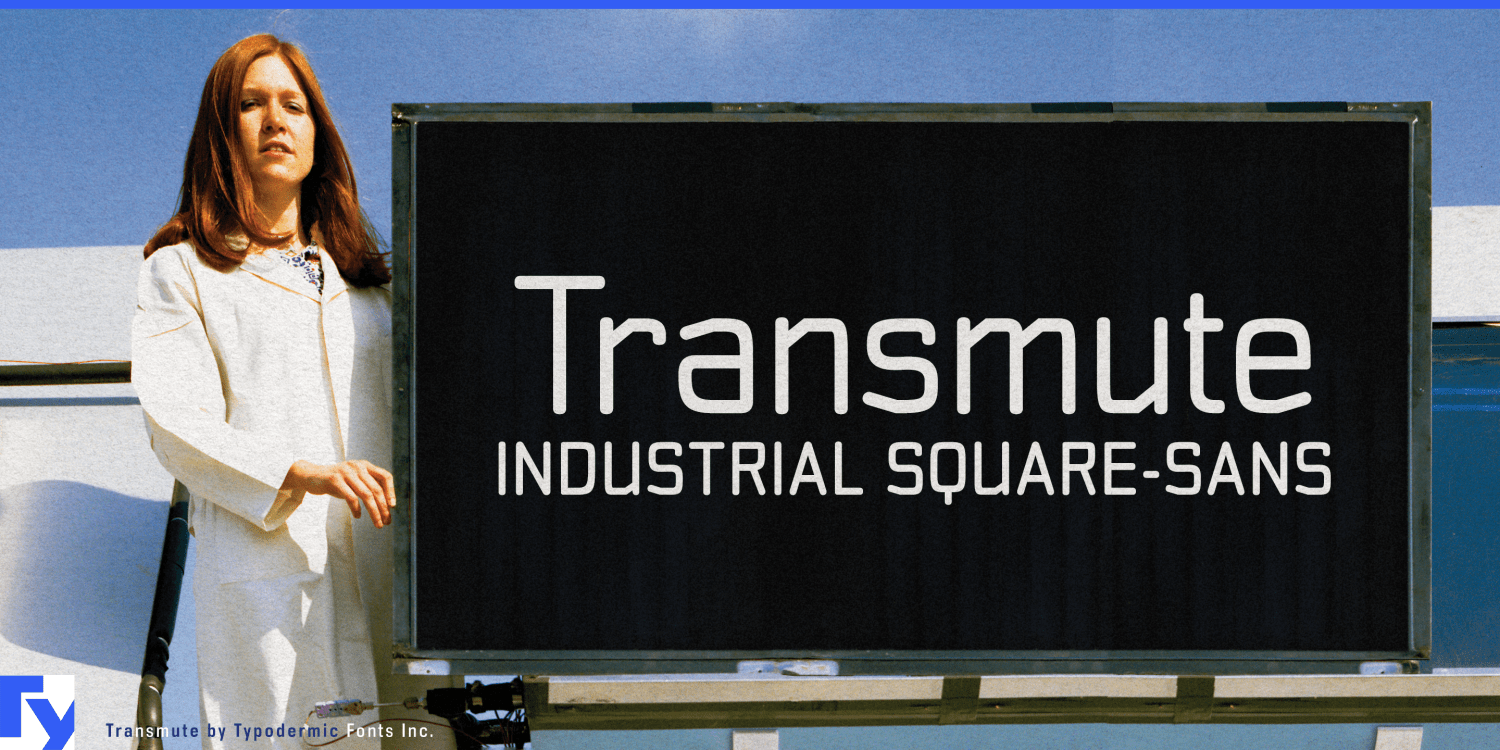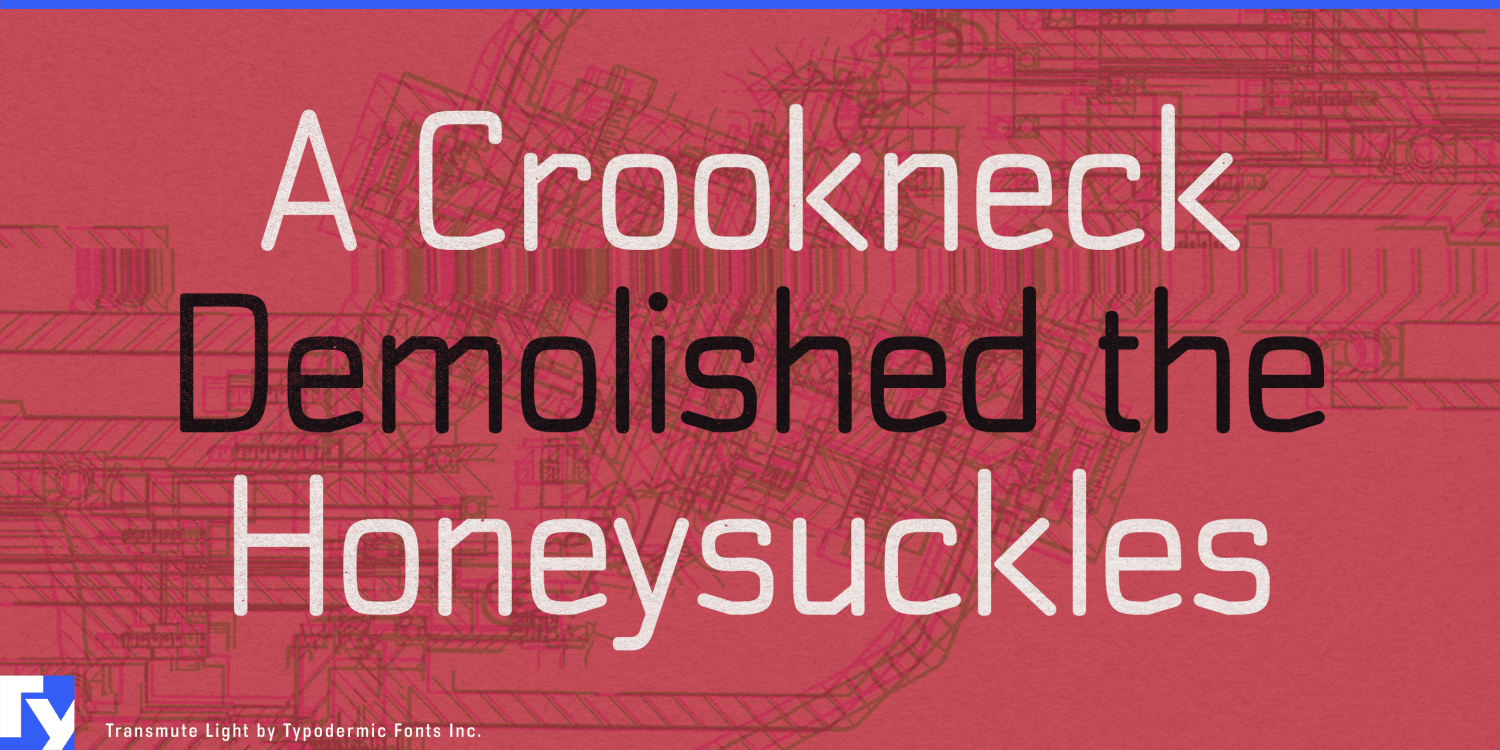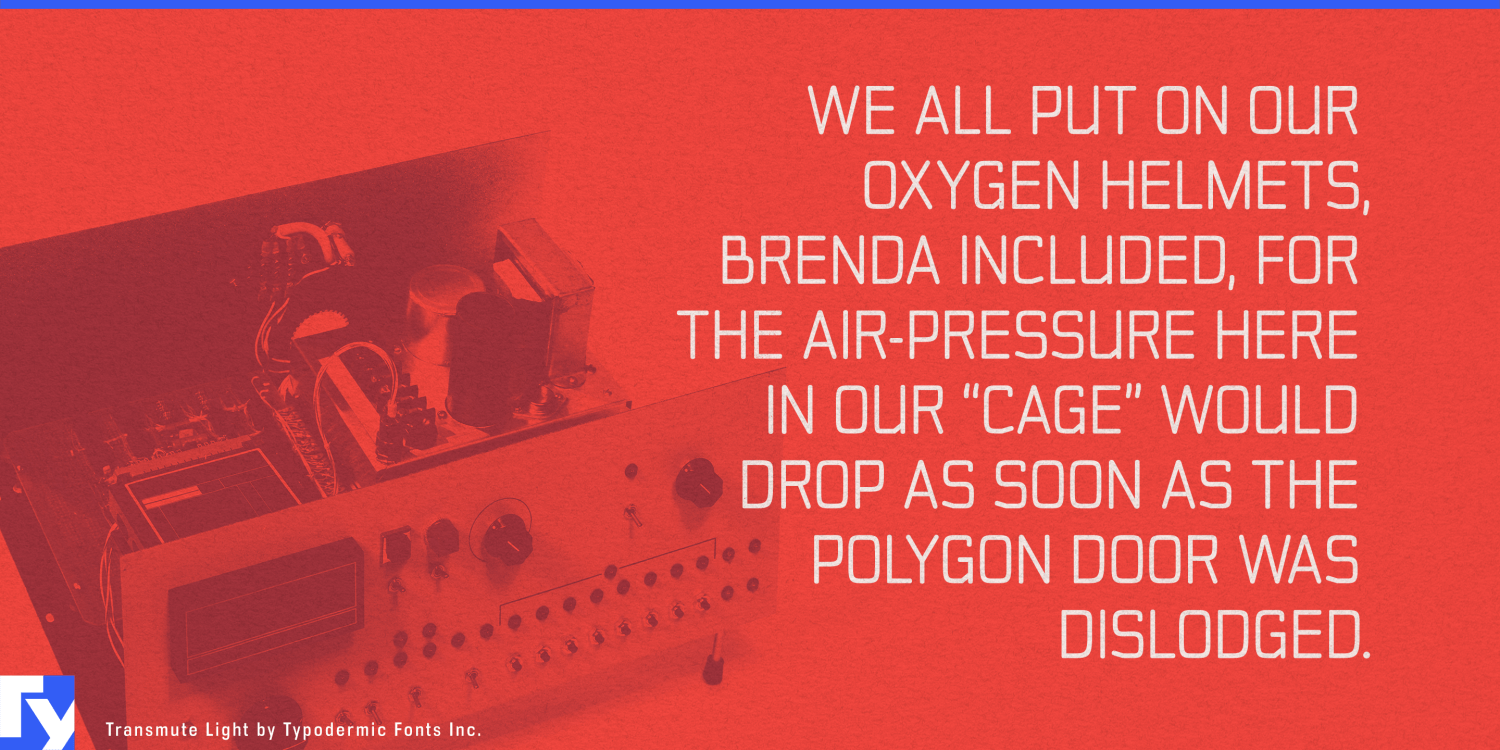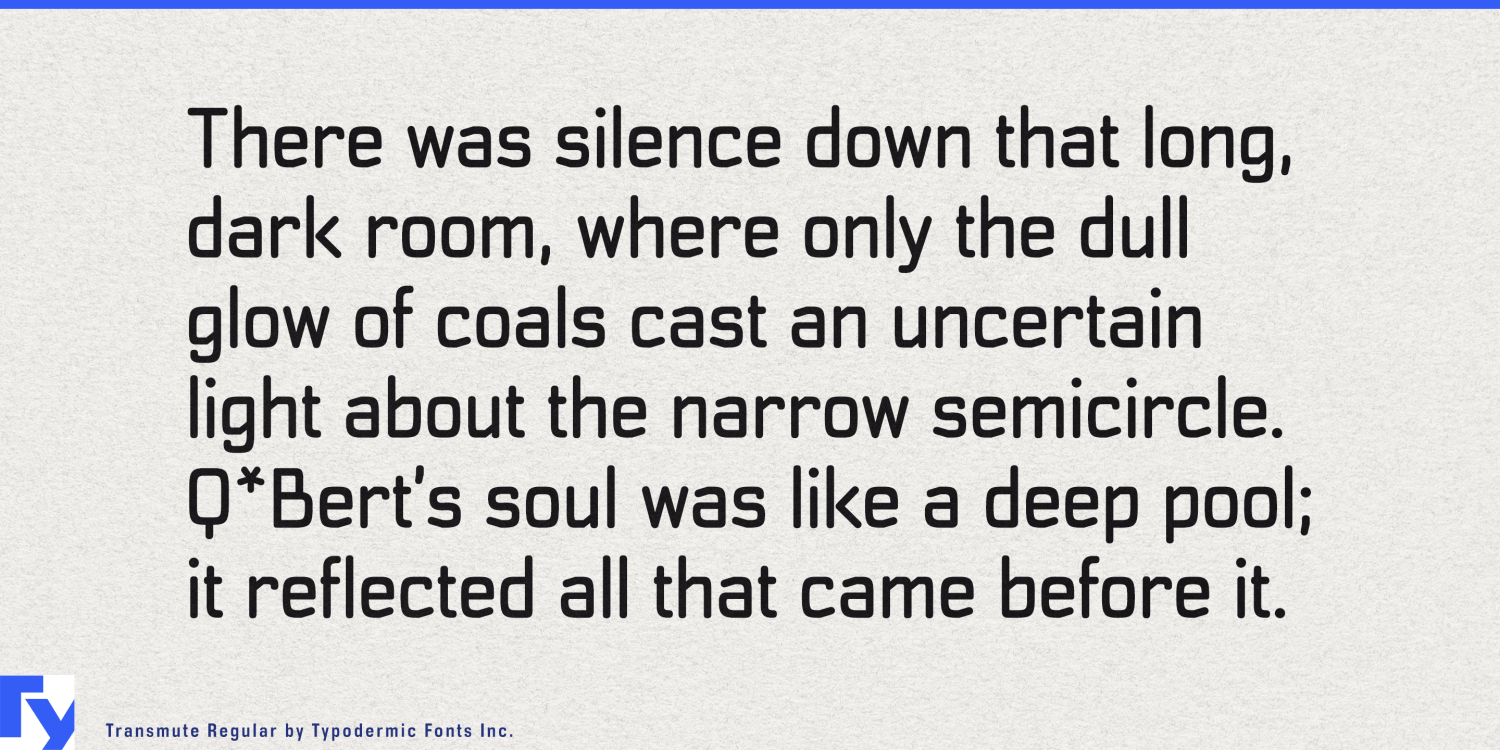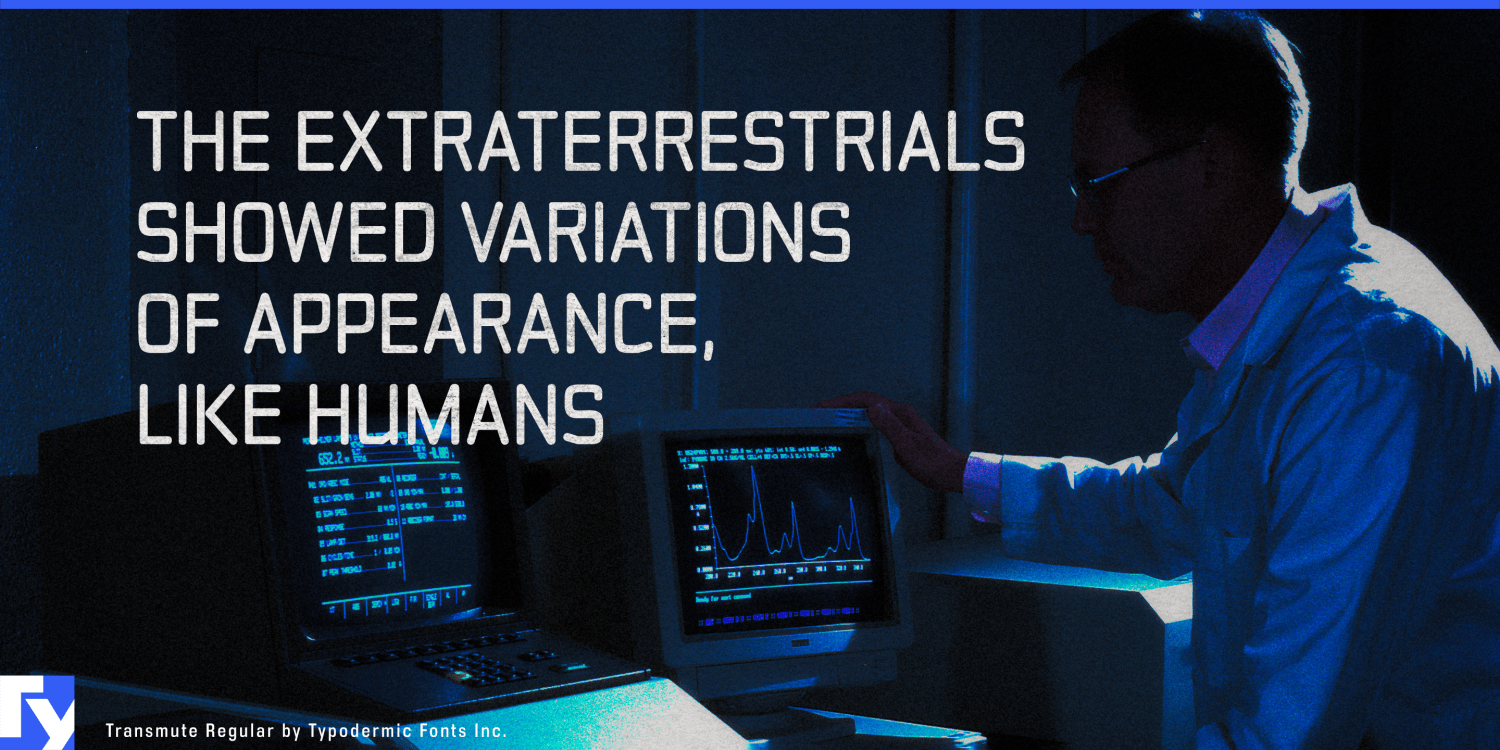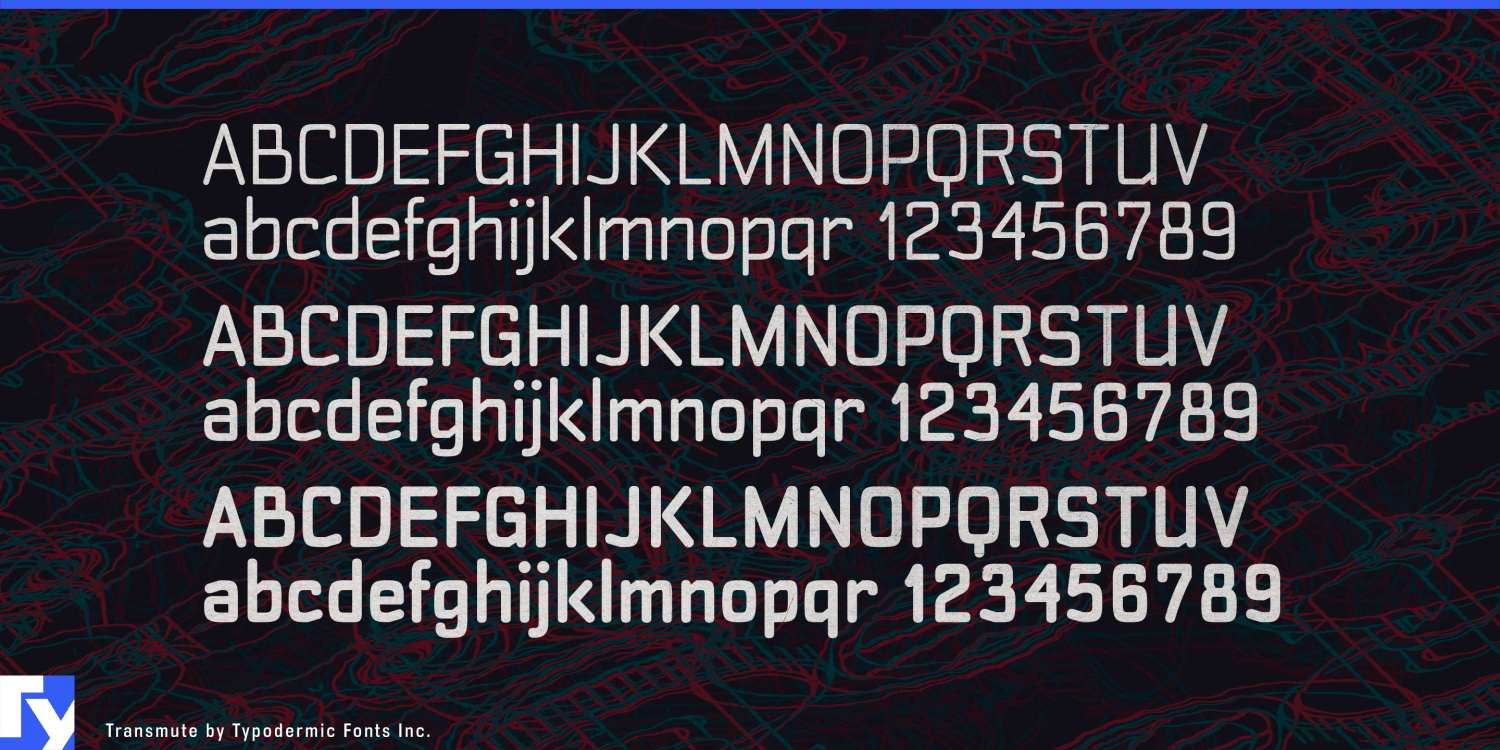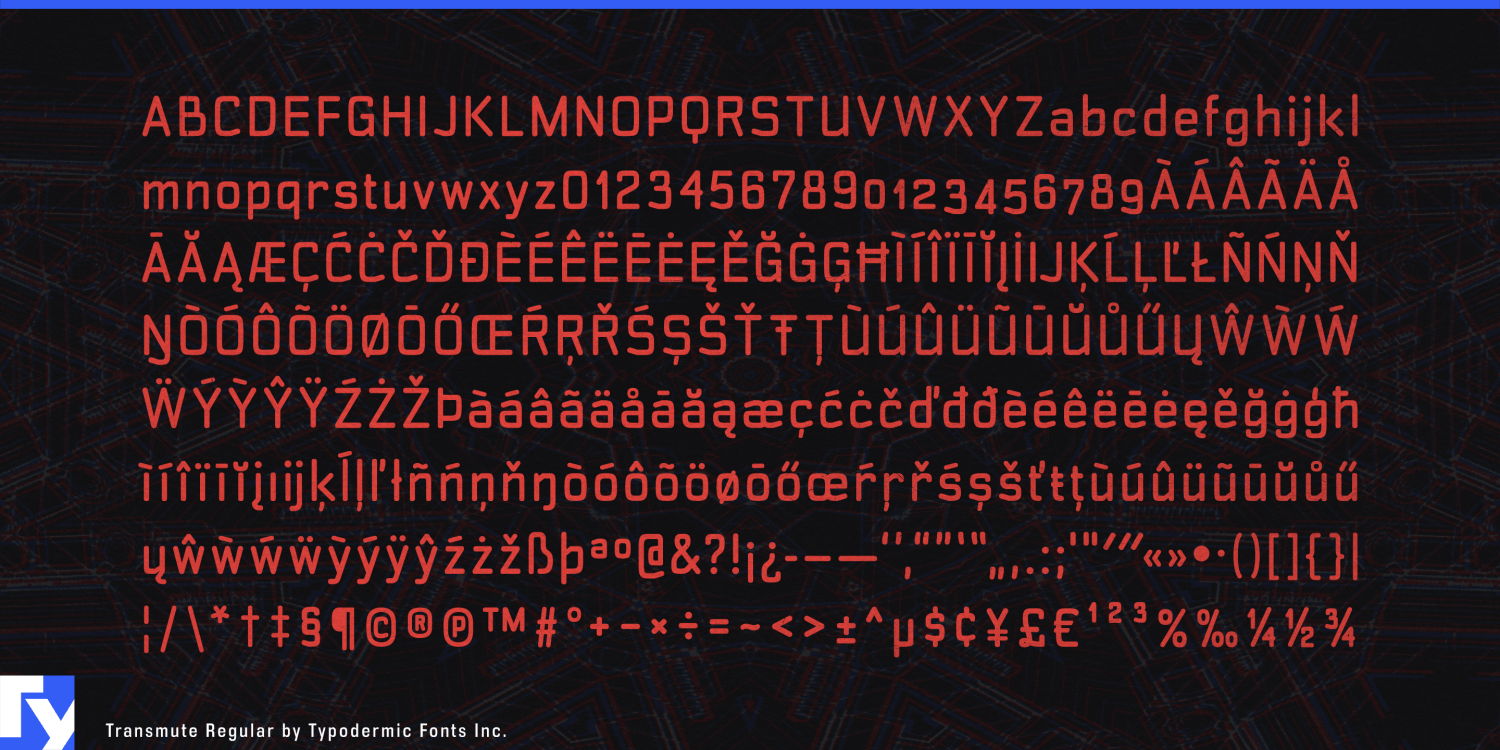
Transmute
Buy NowAdvanced hardware may be driven by sophisticated software, but the physical machine has not disappeared. Instruments still have panels, modules, selectors, housings, ports, control zones, and equipment labels. The challenge is giving those surfaces a contemporary technical identity without making them look like anonymous office electronics or a fictional spaceship.
Transmute is built for that boundary between digital systems and tangible machinery. Its squared monoline construction, rounded corners, clipped details, and compact mixed-case forms suggest keys, instrument panels, modules, and electromechanical controls without reproducing any one historical device. It feels technological because it looks operated rather than merely displayed.
Autonomous laboratories are an especially strong setting. Robotic sample stations, automated microscopes, liquid-handling systems, analytical instruments, materials-research cells, and other self-directed laboratory equipment still need to be identified, accessed, calibrated, and serviced. Transmute can handle instrument names, module headings, equipment markings, experiment-station graphics, demonstration displays, and laboratory-automation presentations while leaving dense results and operating instructions to a conventional text face.
Test and measurement equipment presents a similar opportunity. Oscilloscopes, spectrum analyzers, RF systems, data-acquisition hardware, optical instruments, calibration equipment, laboratory power supplies, and custom research machines all sit between physical controls and digital information. Transmute can give front-panel section names, instrument families, measurement modes, equipment cases, exhibition graphics, and system diagrams a common technical voice.
The same language can work inside specialist vehicles and machinery. Performance EVs, off-road vehicles, agricultural machines, emergency vehicles, and industrial equipment still rely on physical selectors, auxiliary controls, rotary interfaces, and clearly divided control zones. Transmute suits console headings, drive-mode graphics, accessory panels, charging hardware, cockpit concepts, and technical presentation material.
Modular professional electronics provide another natural fit. Industrial edge computers, sensor hubs, rugged diagnostic tools, removable I/O modules, communications equipment, and serviceable control systems are built from visible components that are inserted, connected, swapped, and configured. Transmute works naturally around sockets, cartridges, display windows, buttons, and equipment bays, making it useful for module-family names, front-panel graphics, rack hardware identities, configuration diagrams, and product-launch material.
Transmute is most useful when technology needs to look tangible: machines that can be opened, adjusted, calibrated, connected, serviced, and physically operated.